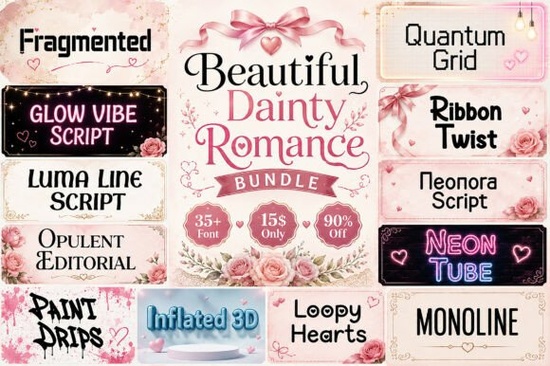
Many crafters and small business owners struggle to find typefaces that balance readability with personality. If you have been searching for a reliable option that supports both elegant weddings and trendy apparel, the Beautiful Dainty Romance Font is designed to fill that gap. This collection offers enough variety to keep your projects looking fresh without requiring you to buy separate packs for every occasion. Whether you are working on a new blog, printing merchandise, or personalizing gifts, having a solid font library saves hours of tweaking.
What styles are included in this bundle?
The true value of this set lies in its diversity. You are not limited to just one look. The collection brings together script, display, decorative, editorial, monoline, neon, graffiti, pixel, and modern styles. This means you can switch from a delicate handwriting feel to something bold and graphic within seconds. For instance, if you are designing a greeting card for a close friend, a handwritten script feels much more intimate than a standard sans-serif. However, when creating a poster for a concert or event, those same letters provide the punch needed to catch attention.
Some designers prefer sticking to one family for consistency. Others like mixing and matching to highlight specific words. Because there are over 35 fonts available, you have room to experiment. If you ever feel stuck with the current selection, there are other resources available depending on your vibe. Sometimes, a playful touch works better than something formal, so exploring options similar to these display fonts can give you an idea of how to pair characters differently.
How can this improve your print-on-demand shop?
Sellers often worry about copyright or compatibility when sourcing assets. Using high-quality files reduces errors when sending orders to printers. These fonts are versatile enough for physical prints like mugs and tote bags, but they also work well for digital downloads such as wall art or planners. When setting up listings on Etsy or Shopify, clear imagery sells better. Typography plays a huge role in conveying the mood of your product images before the customer even reads the description.
Niche markets benefit significantly from tailored typography. If you specialize in baby showers or children’s brands, softer curves often appeal more to parents. For example, looking at how specialized themes are handled, similar to certain nursery styles, helps explain how font weight impacts perception. On the other hand, if you sell streetwear, edgy styles like graffiti or pixel art can set your clothing apart from basic minimalist competitors.
Are there seasonal uses for these typefaces?
Craftspeople know that planning ahead is key to success. Holidays bring higher traffic, so having pre-made templates ready makes a difference. A script bundle is perfect for Valentine’s Day or anniversaries, while bolder types suit summer sales events. Some creators also want to honor community events throughout the year. Being able to adjust tone for inclusivity is important for modern marketing strategies. You might find that specific thematic sets, like those focused on celebrating diversity, align well with broader brand values during certain months.
Not every project requires the full intensity of a neon or display font. Everyday tasks like social media captions or email newsletters need subtlety. This is where monoline or modern styles shine. They remain legible on mobile screens without distracting from the photo content. If you enjoy a casual, relaxed aesthetic, alternatives with simpler strokes, such as the kind found in fun cursive collections, offer a nice break from heavy outlines.
Sometimes, users look for specific themes that blend well with this genre. Nature lovers might find inspiration in organic shapes compared to thematic display types. Regardless of the style, always verify the license terms. Most bundles allow for personal use and limited commercial production. Always read the specific PDF included in your download folder to ensure compliance with your business model.